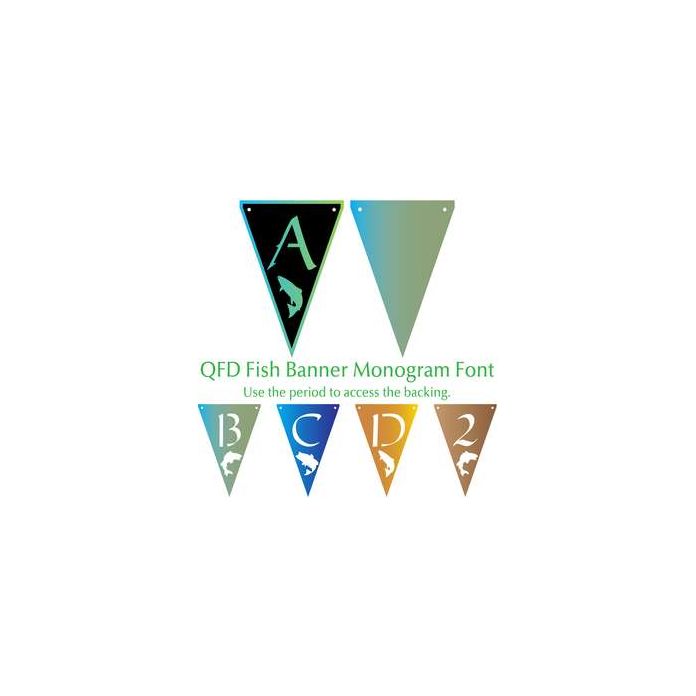
Great for the fisher person in your life! Layer the letter on the plain triangle, matching the holes. String on the wall! See our detailed monograms tutorial by clicking the Instructions button. If you have any questions, please feel free to contact me.